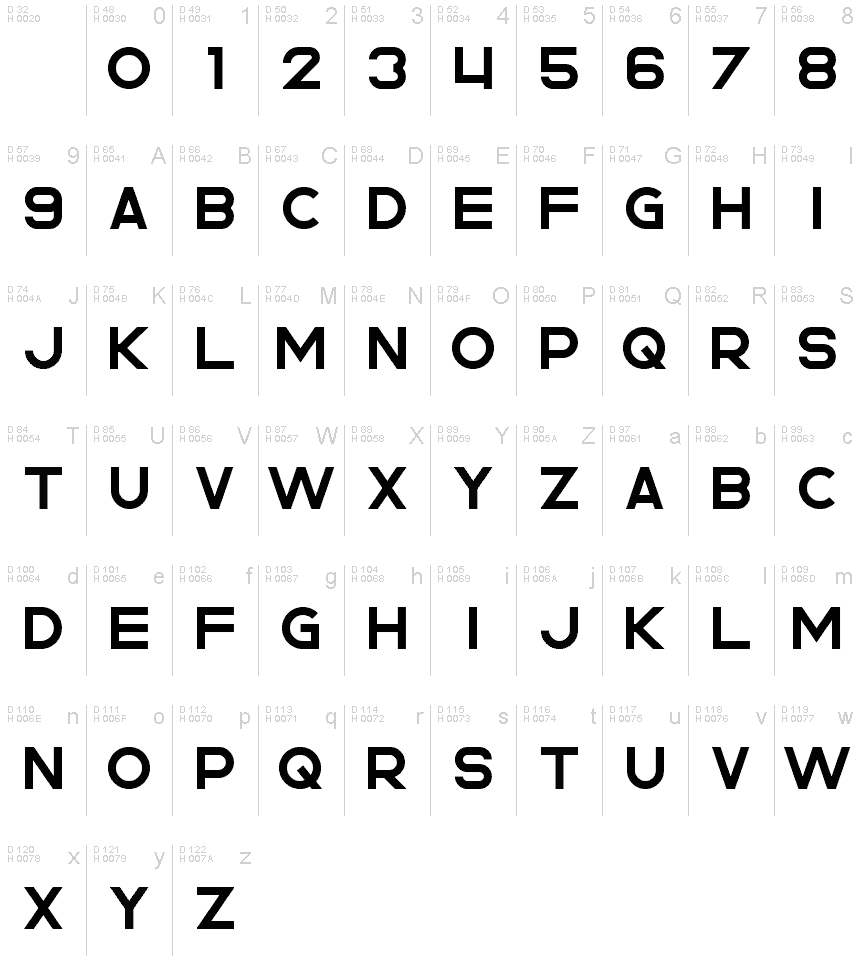
Rhino
Rhino, crafted by the innovative minds at VPcreativeshop, stands out as a bold and expansive sans serif font that commands attention. Its wide letterforms convey stability and strength, making it an excellent choice for branding projects that require a robust and contemporary presence. The clean lines and uniform thickness of Rhino lend it a modern aesthetic that is both versatile and visually striking.
The font's expanded width not only provides a significant visual impact but also ensures readability at various sizes, making it suitable for everything from large-scale signage to fine print. Rhino's sans serif style is synonymous with clarity and simplicity, which is ideal for design endeavors aiming to achieve a sleek and uncluttered look.
Whether employed in digital media or print, Rhino has the potential to elevate creative projects with its distinct style. Its aesthetic appeal resonates in minimalist designs yet possesses enough character to be the centerpiece in more elaborate compositions. With Rhino, designers have access to a typeface that is as practical as it is appealing—perfect for branding, advertising campaigns, editorial work, and much more.